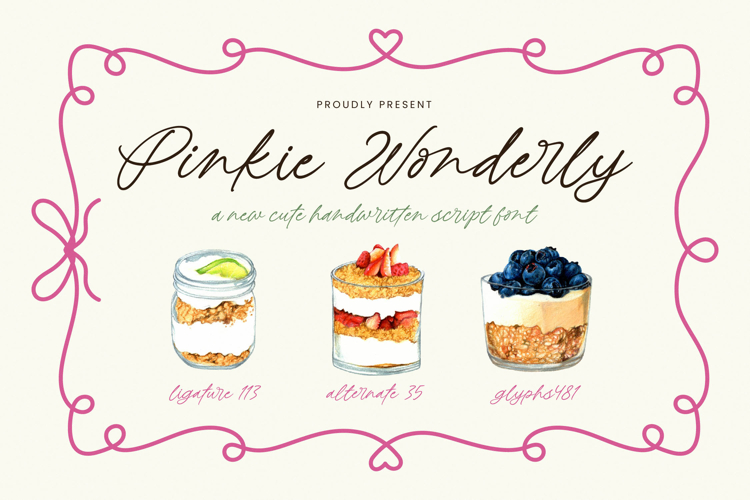
Pinkie Wonderly - Cute Handwritten Script
Discover the delightful allure of Pinkie Wonderly - Cute Handwritten Script, a font crafted to infuse your designs with unparalleled warmth and genuine personality. This exquisite handwritten script captures the spontaneity and charm of authentic penmanship, offering a fresh, inviting aesthetic. Its soft curves and fluid connections evoke a sense of heartfelt elegance, perfect for projects demanding a human touch and a welcoming appeal.
Elevate your creative projects with the remarkable flexibility of Pinkie Wonderly - Cute Handwritten Script. Featuring an impressive array of ligatures, alternates, and extensive glyphs, this font allows for truly unique design variations that mimic natural handwriting. Each character is meticulously designed to connect seamlessly, ensuring a cohesive and beautifully organic flow across all your applications, from headlines to detailed text.
Expand your global reach effortlessly. With its extensive multilingual support, Pinkie Wonderly - Cute Handwritten Script adapts seamlessly across global markets, making it incredibly versatile for international projects. This ensures your message resonates universally, maintaining its distinctive charm and professional polish, no matter the language or audience. It’s an essential tool for designers seeking both aesthetic appeal and practical global functionality.
Pinkie Wonderly - Cute Handwritten Script is the quintessential choice for projects requiring a touch of personalized charm and professional grace. It is perfectly suited for boutique branding, packaging design, appealing social media graphics, elegant wedding invitations, and thoughtful greeting cards. Inject a captivating, friendly vibe into your designs, ensuring your brand leaves a memorable and endearing impression.